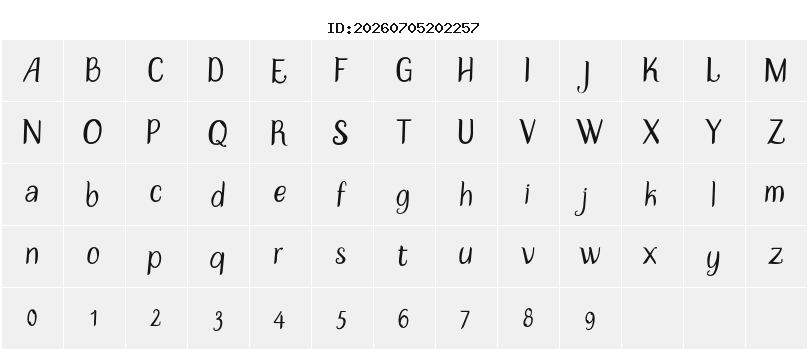
Disguise Slim Sans Preview
• Font Name: Disguise Slim Sans
• Designer: Gleisson Cipriano
About Disguise Slim Sans.otf
Disguise Slim Sans.otf is a modern, elegant sans-serif font designed for ultimate readability and visual harmony. Perfect for branding, headlines, web design, and print materials.